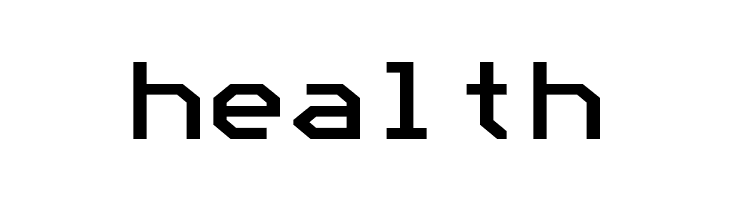
A geometric, monospaced font with a technical, digital aesthetic.
A geometric, monospaced font with a modern, technical style.
A geometric, monospaced font with a technical and modern design.
A clean, monospaced font ideal for coding and technical documents.
Geometric monospaced font with square outlines and uniform spacing.
A modern, thin, monospaced font with a minimalist design.
A pixelated, monospaced font with a retro digital aesthetic.
A modern, monospaced font with a clean and geometric design.
A modern, monospaced font with a geometric and structured design.
A clean, monospaced font with geometric influences and consistent character width.